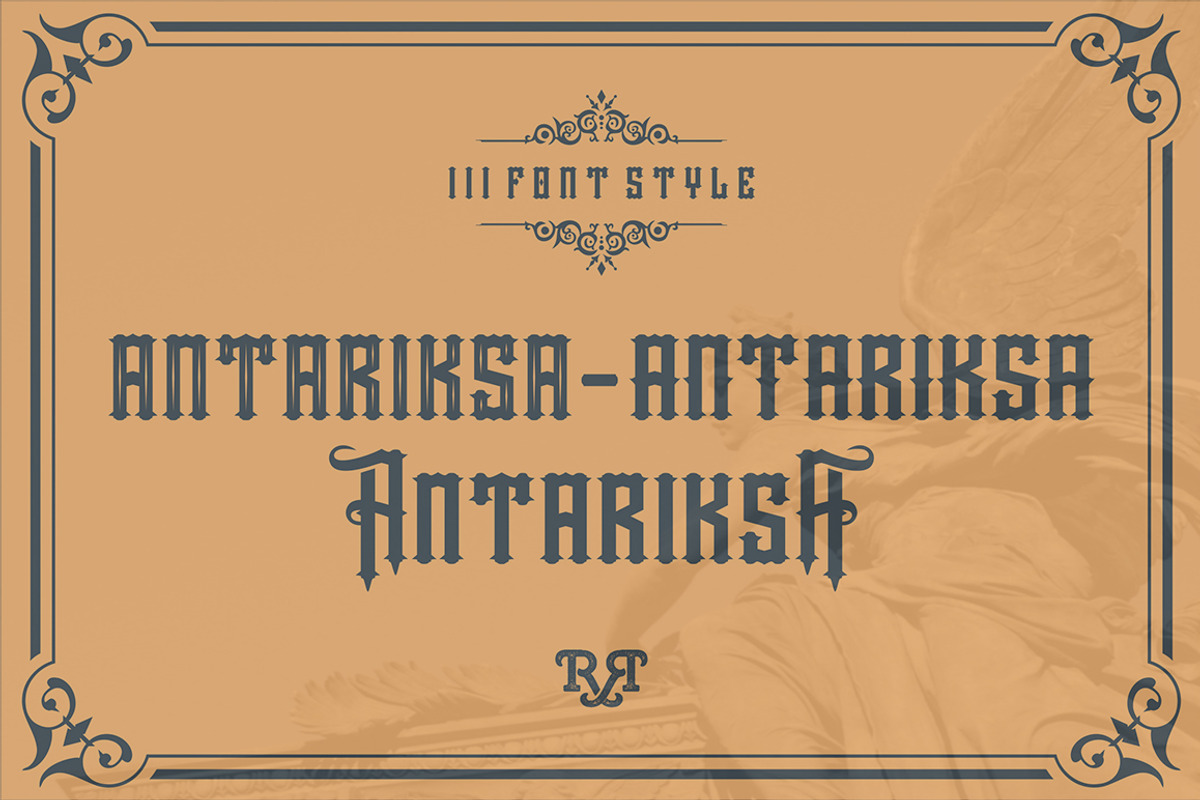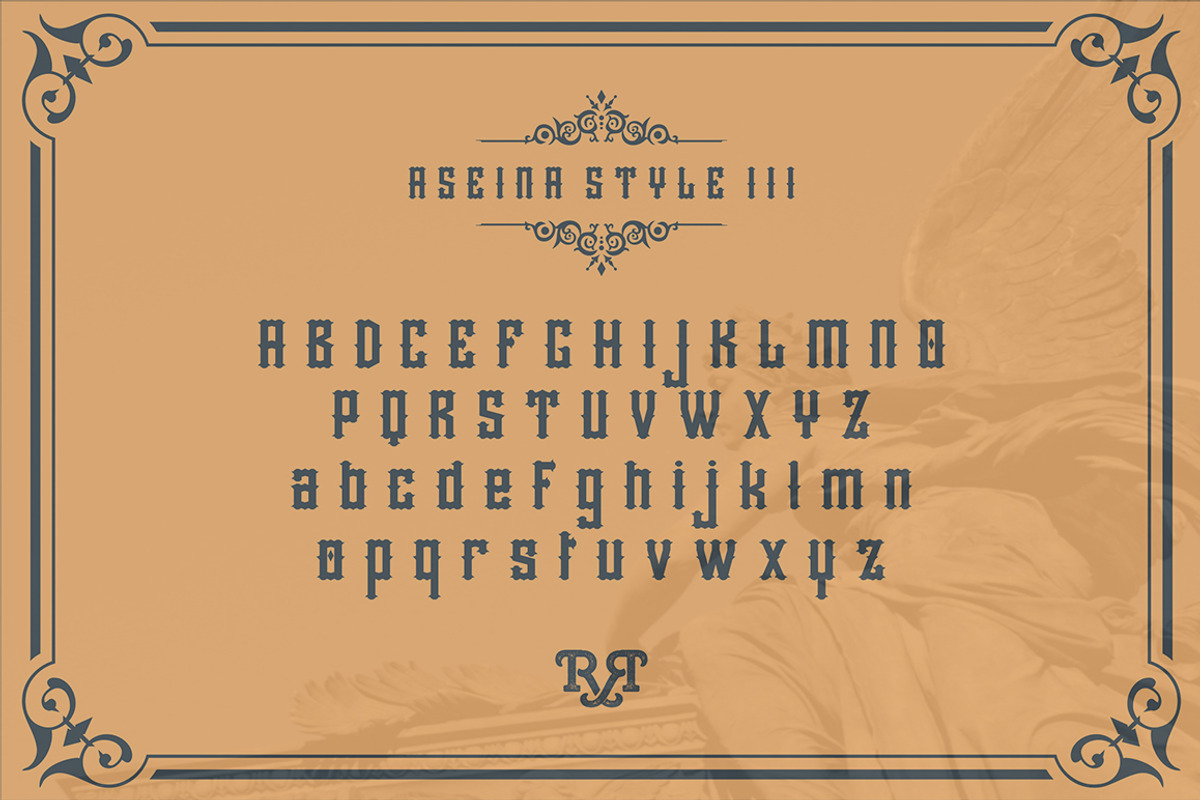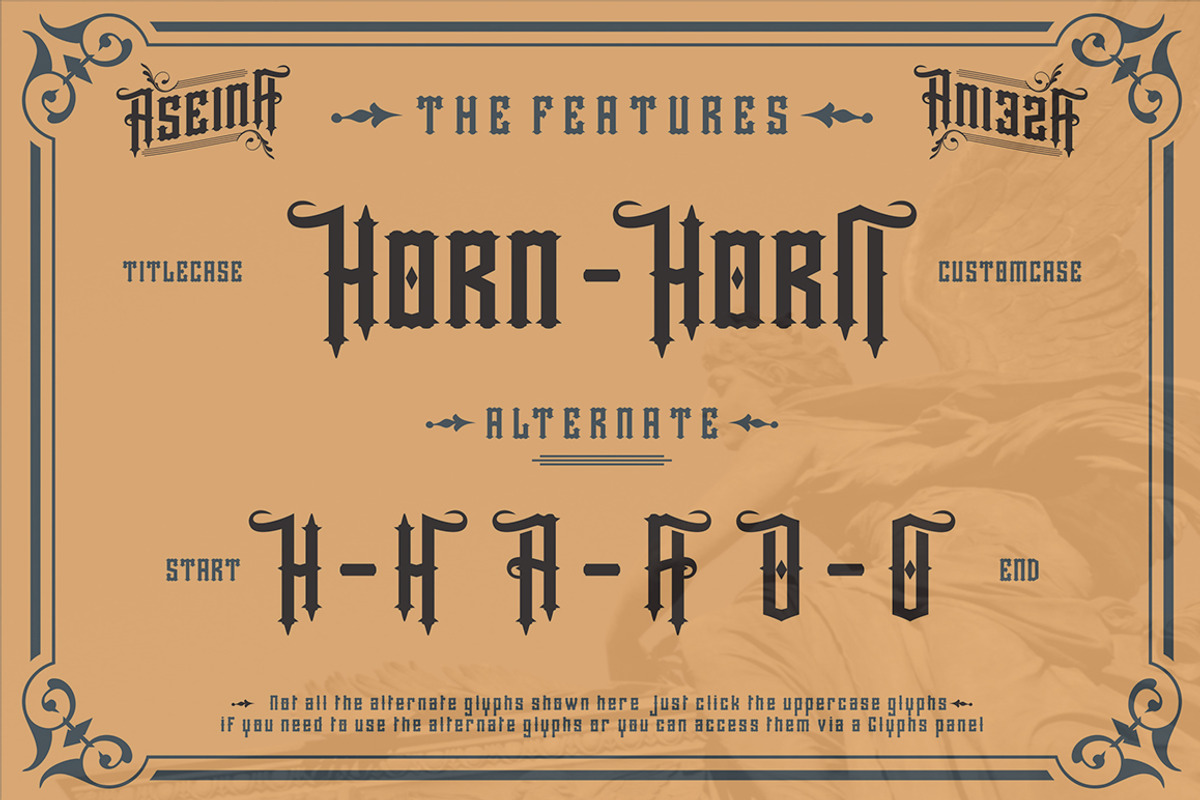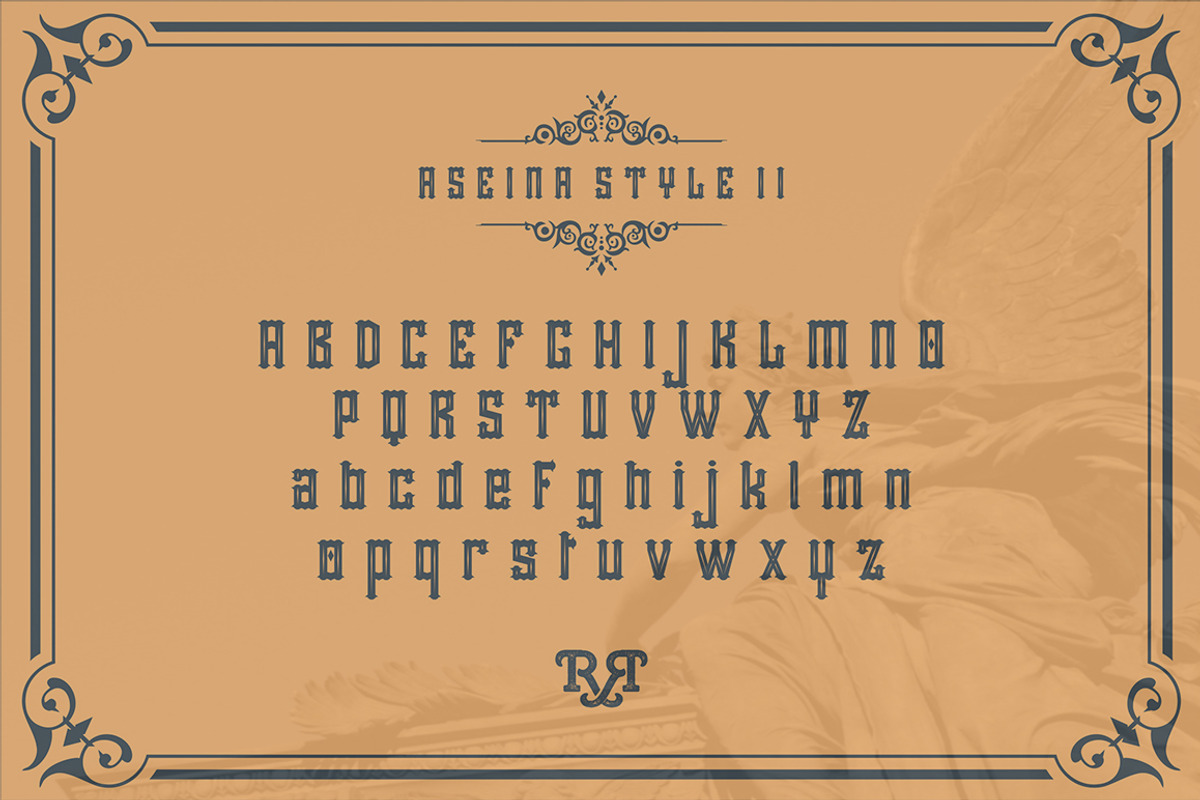
Aseina Typeface + Bonus
Aseina Typeface + Bonus by Rvq Type Foundry is a font selected for branding, posters, packaging, typography.
- The aseina typeface includes a full set of capital and lowercase letters, as well as multi-lingual support, currency figures, numerals, punc
- Character Set A-Z
- Aseina typeface is suitable font for many creative products & designs.
- Aseina style II Regular
- Aseina style III Regular
Aseina Typeface + Bonus by Rvq Type Foundry fits naturally into Branding, posters, packaging, typography.